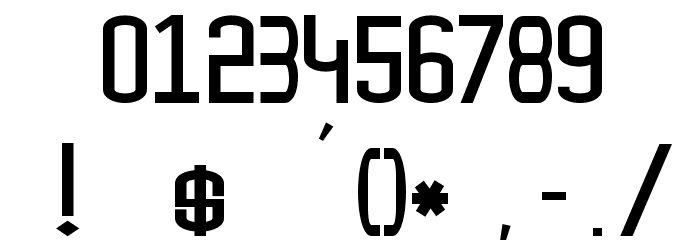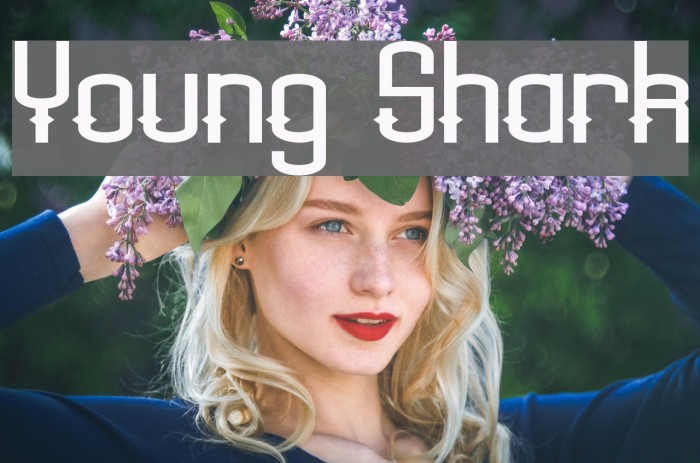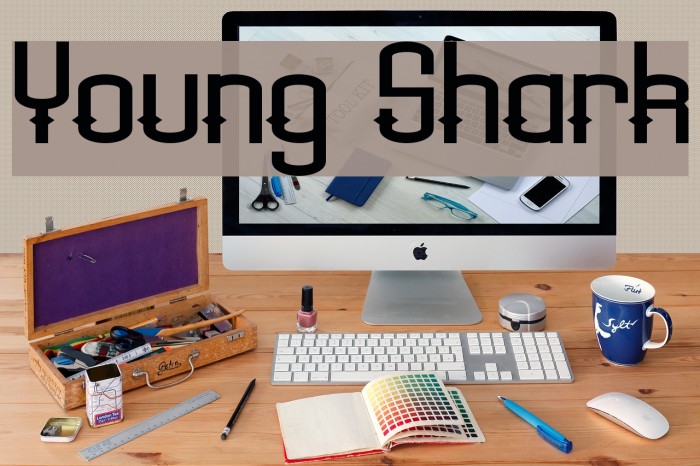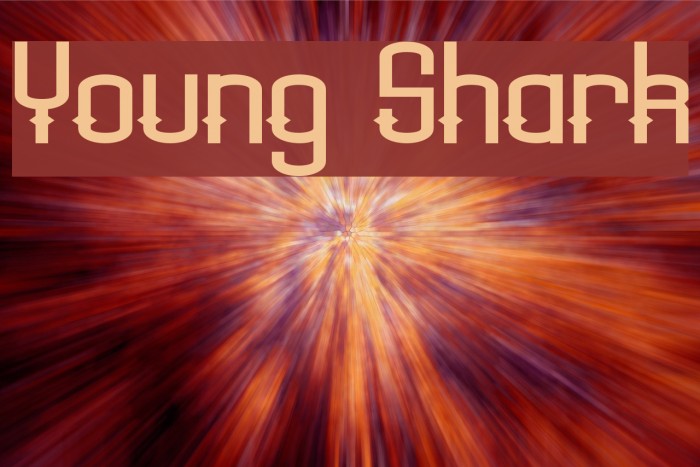
Young Shark Font
This font features a bold and distinctive style with unique geometric elements that create a modern and edgy appearance. The uppercase and lowercase letters are characterized by thick vertical lines and sharp angles, giving them a strong and impactful look. The numbers and special characters maintain this boldness, ensuring consistency across all glyphs. The font's design incorporates a blend of traditional and contemporary elements, making it versatile for various creative applications. Its striking appearance is suitable for projects that require a standout typeface.
A bold, geometric font with modern and edgy characteristics.
- Proposed Projects: Ideal for branding, poster design, album covers, and any project needing a bold, modern typeface.